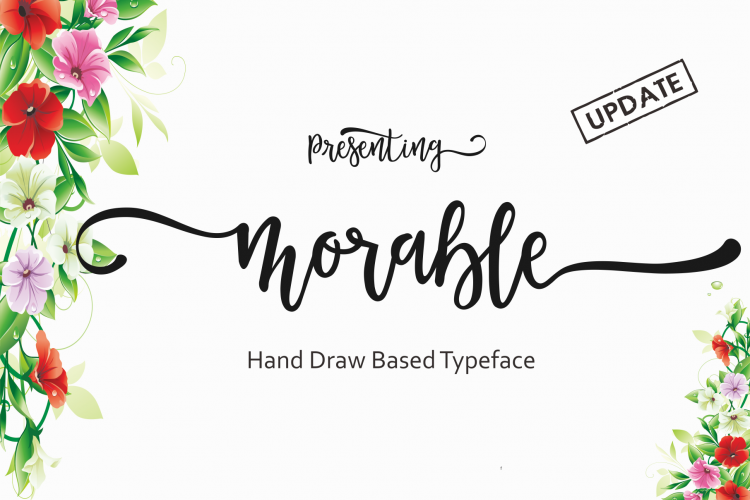
Morable Update
Morable
Update
Morable
is a modern hand based typeface, This font consists of letters that flows irregularly, either between top-down and with the letter afterwards, which makes it suitable for Logotype, posters, businness card, merchandise, wedding invitations, greeting cards, blog banners, apparel, design of water-based paints/prints, correspondence, quotes and a variety of other!
Morable Update